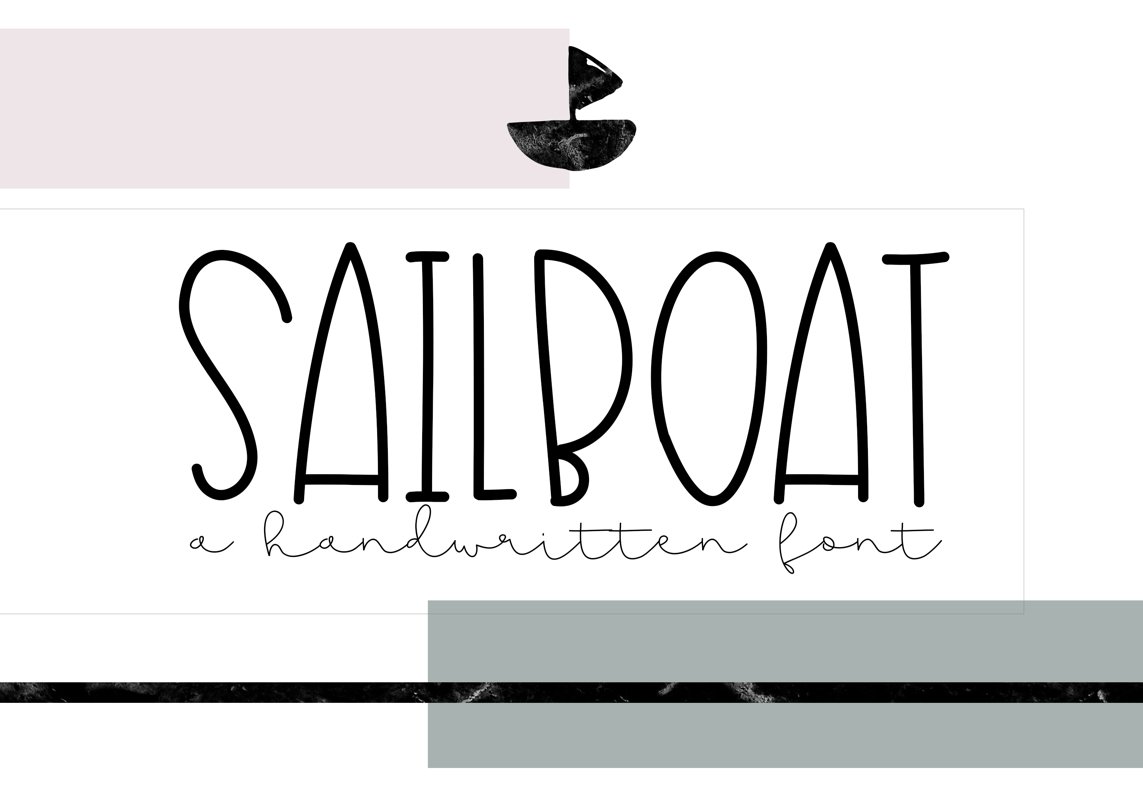
Sailboat - A Fun Handwritten Font
Sailboat
Sailboat is a fun font with cute letters.
*the capital letters and lowercase letters are the same for this font*